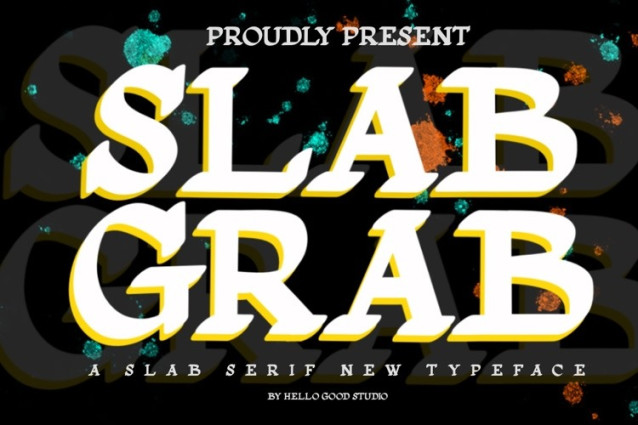
Slab Grab Font, perfectly fit for branding, logo, wedding things, greeting cards, fashion, lookbook, marketing promotion, anytime you want to look fancy elegant but still casual.
Slab Grab Font